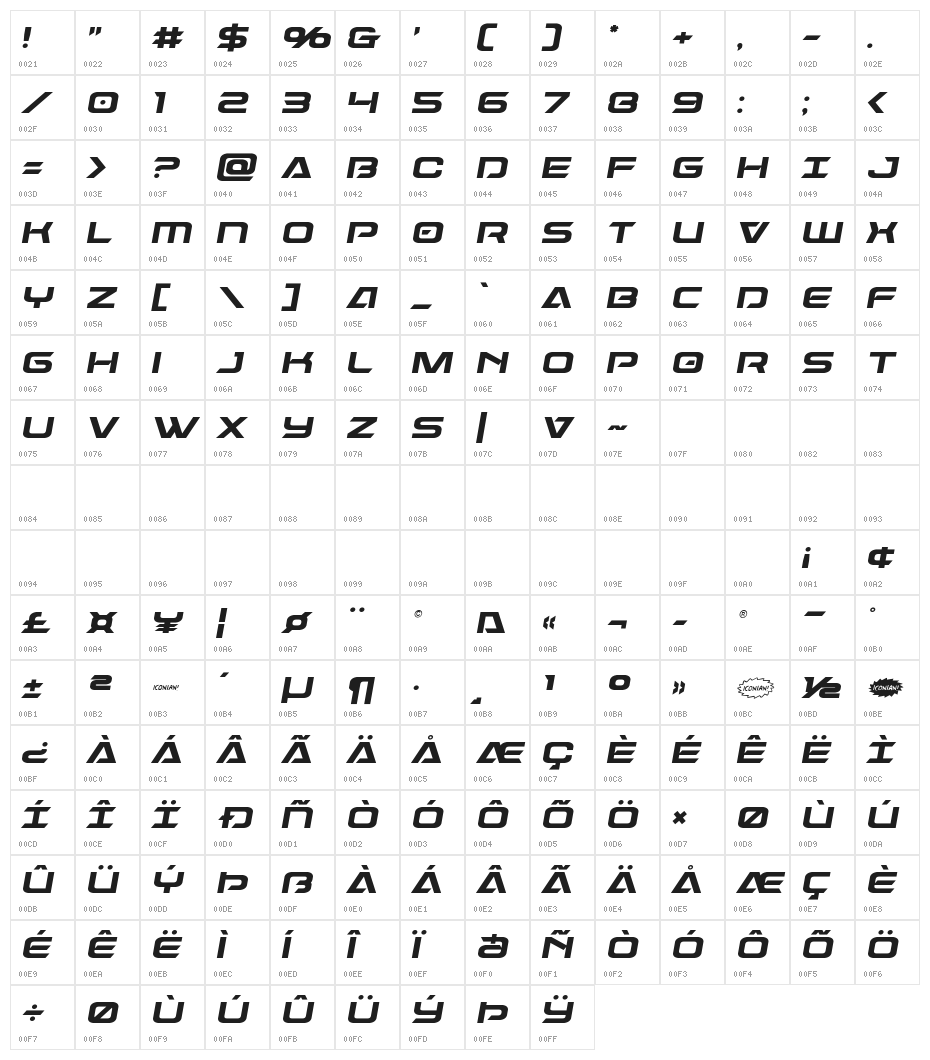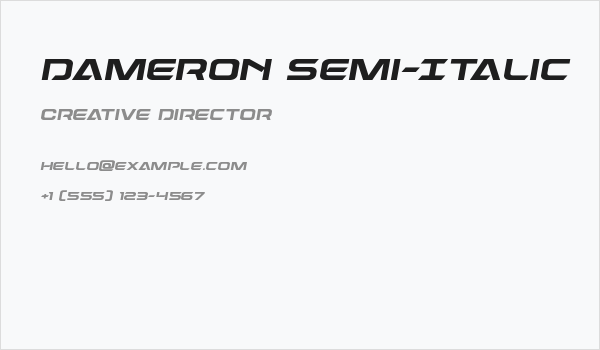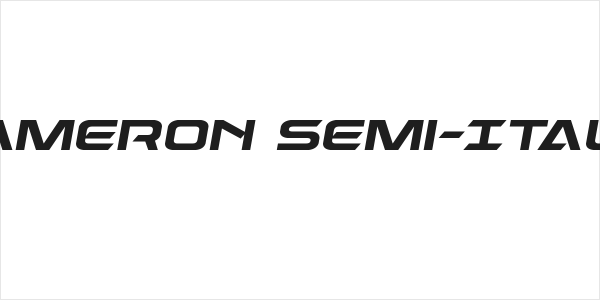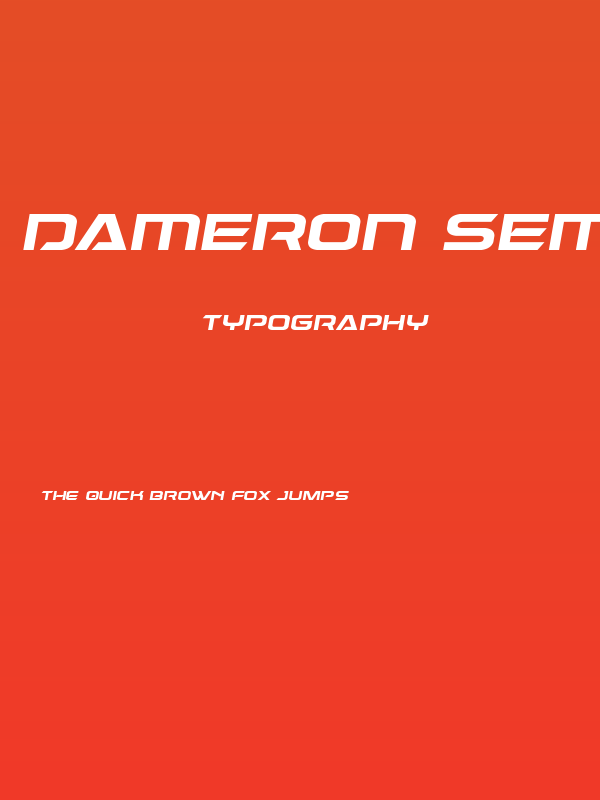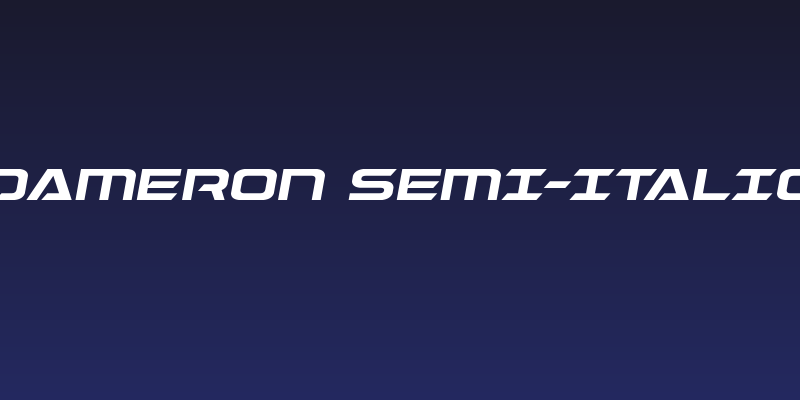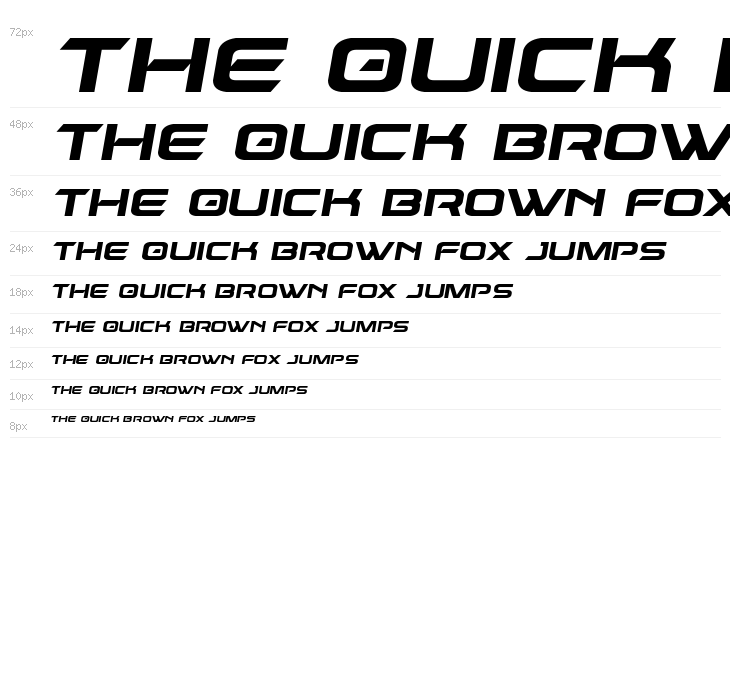
Dameron Semi-Italic Font
Dameron Semi-Italic Description
This font features a sleek and modern design with a semi-italic style, giving it a dynamic and forward-moving appearance. The characters are slightly slanted, enhancing the sense of motion and energy. The strokes are consistent in weight, providing a clean and uniform look across all characters. The design incorporates subtle curves and angles, adding a touch of sophistication and elegance. The font maintains a balanced proportion, ensuring readability while still conveying a sense of style. It is well-suited for projects that require a contemporary and professional aesthetic.
| Proposed Projects | Ideal for branding, advertising, sports-related designs, and modern web interfaces. |